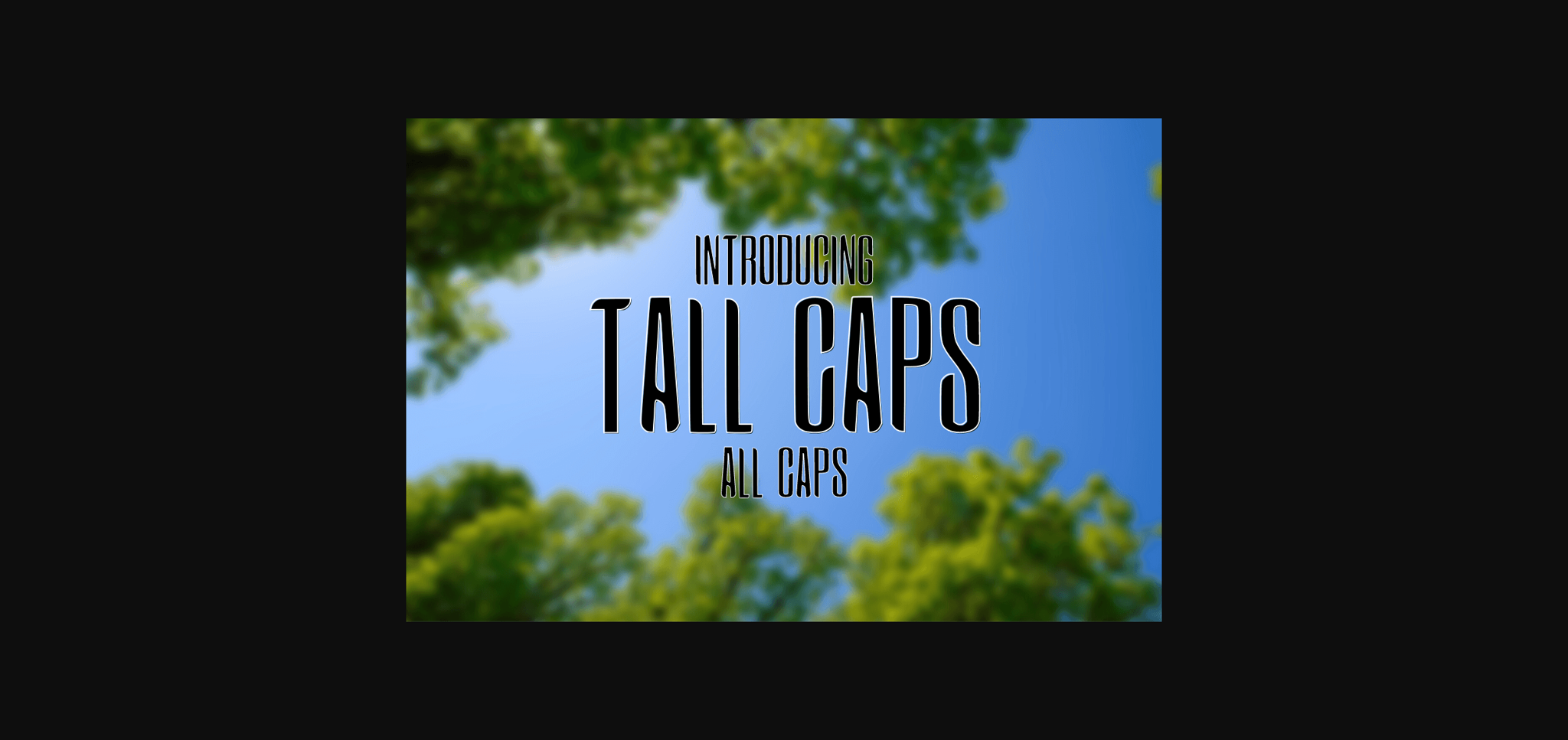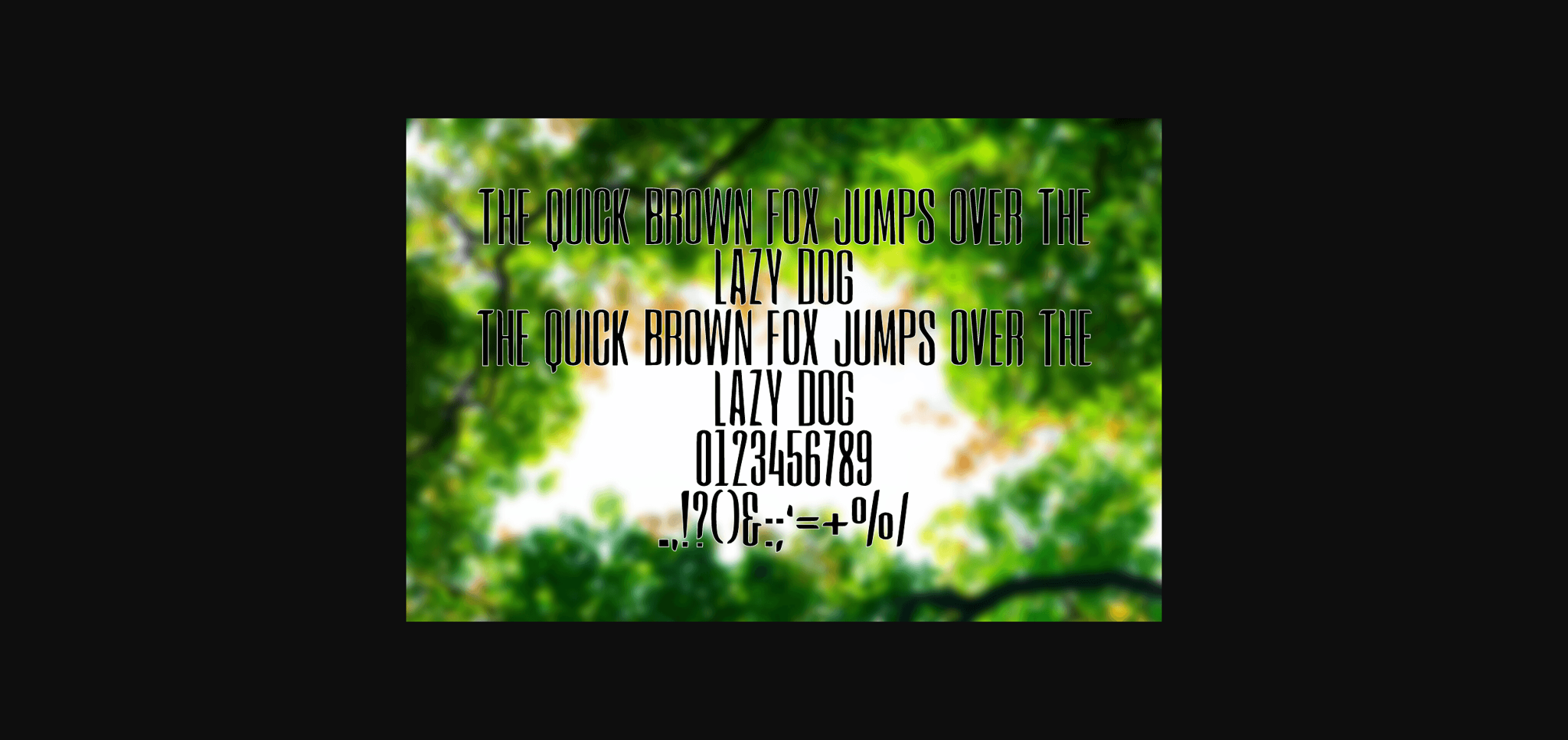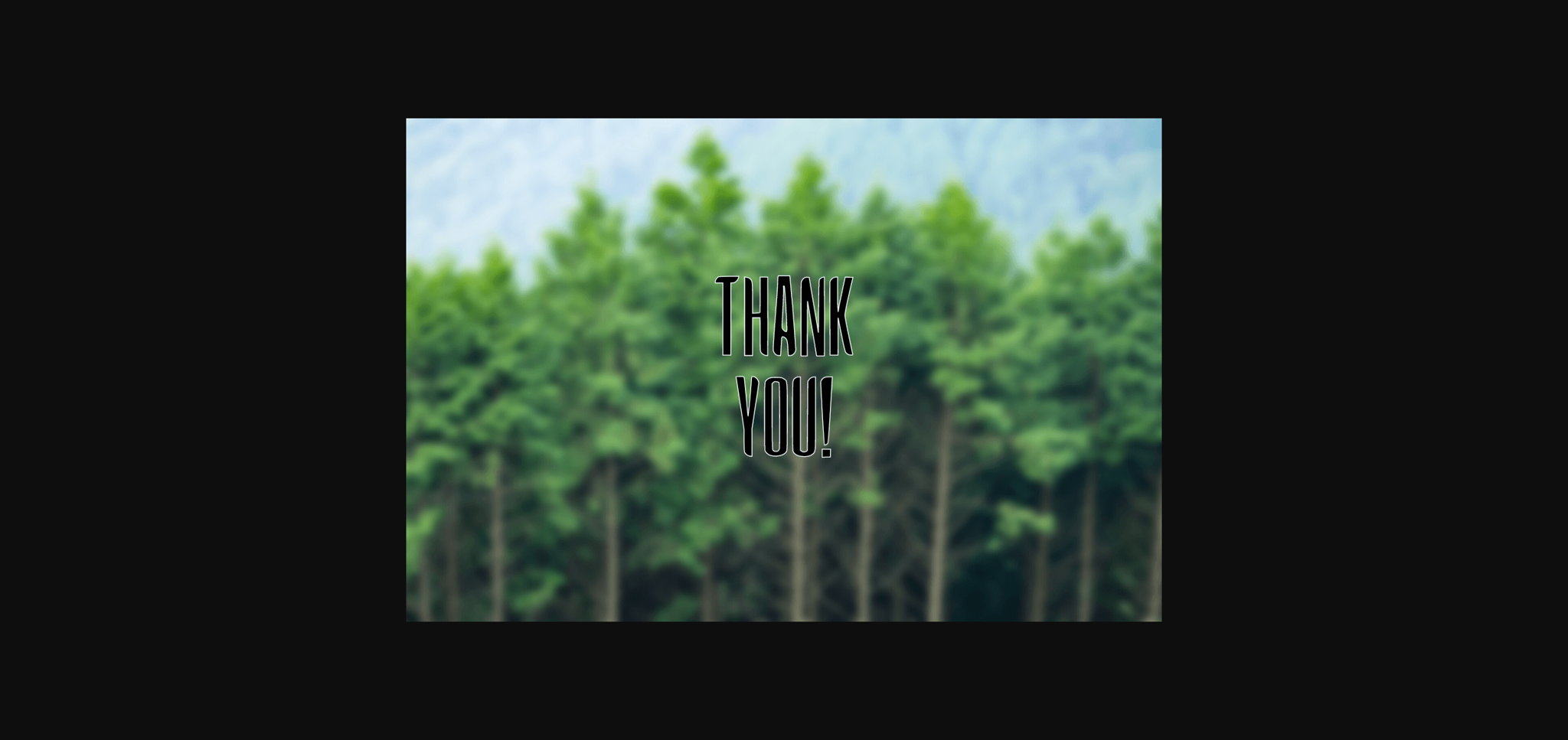
About Tall Caps Font
Tall Caps is a neat and sleek sans serif font that is perfect for any project that needs a classy, formal, and unique touch.
You can use it for lots of projects like invitations, cards, logos, headlines, and any other design. Add it to your creative ideas and designs and make them stand out!